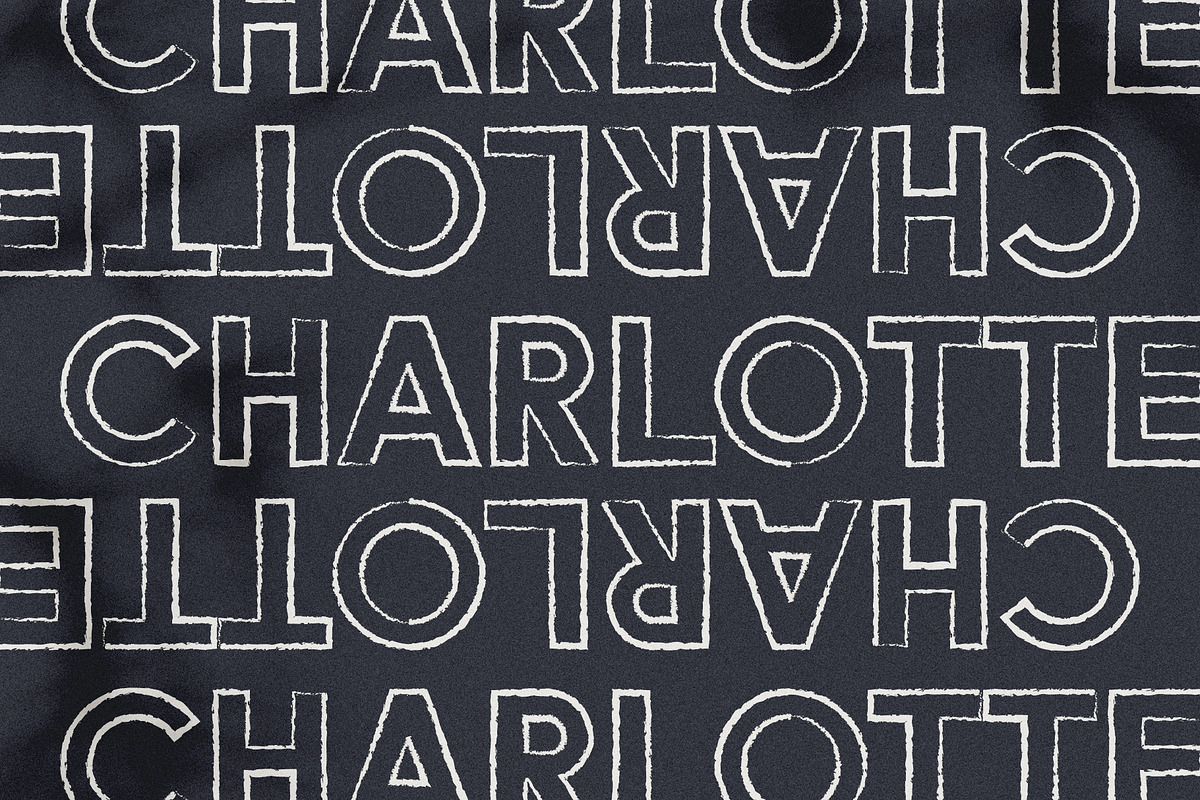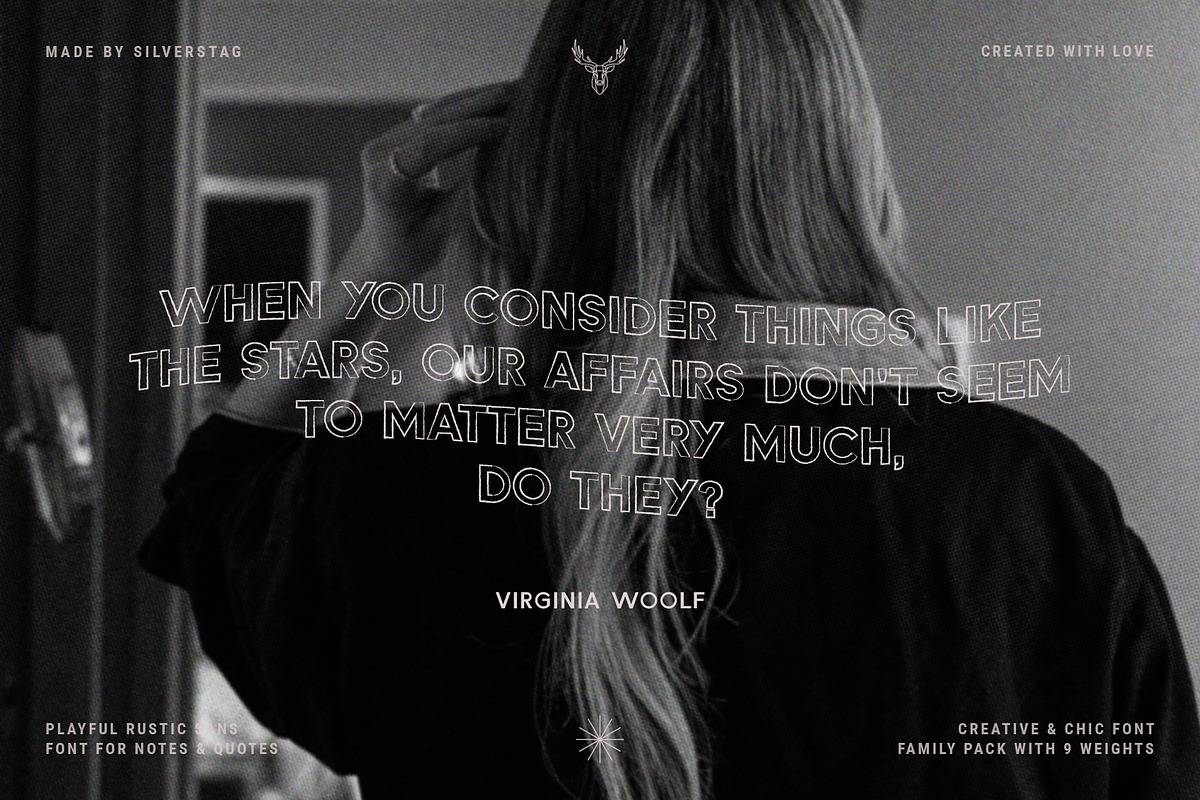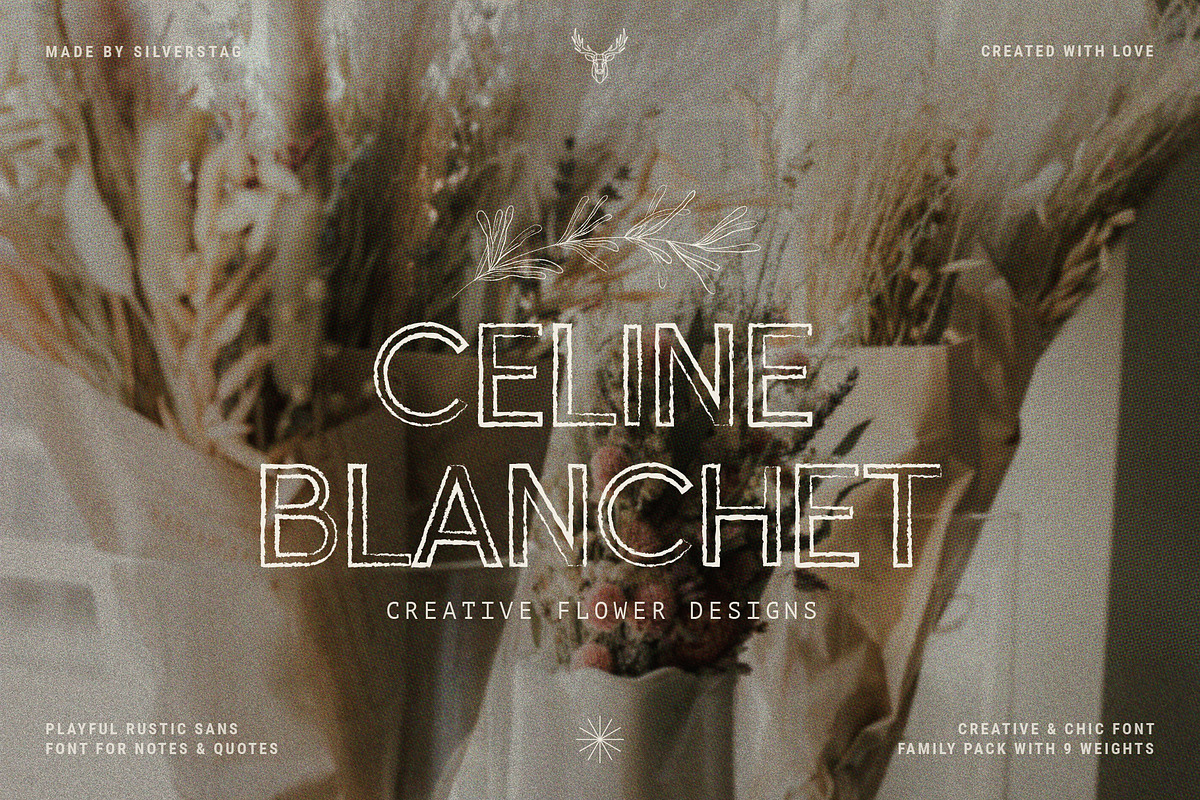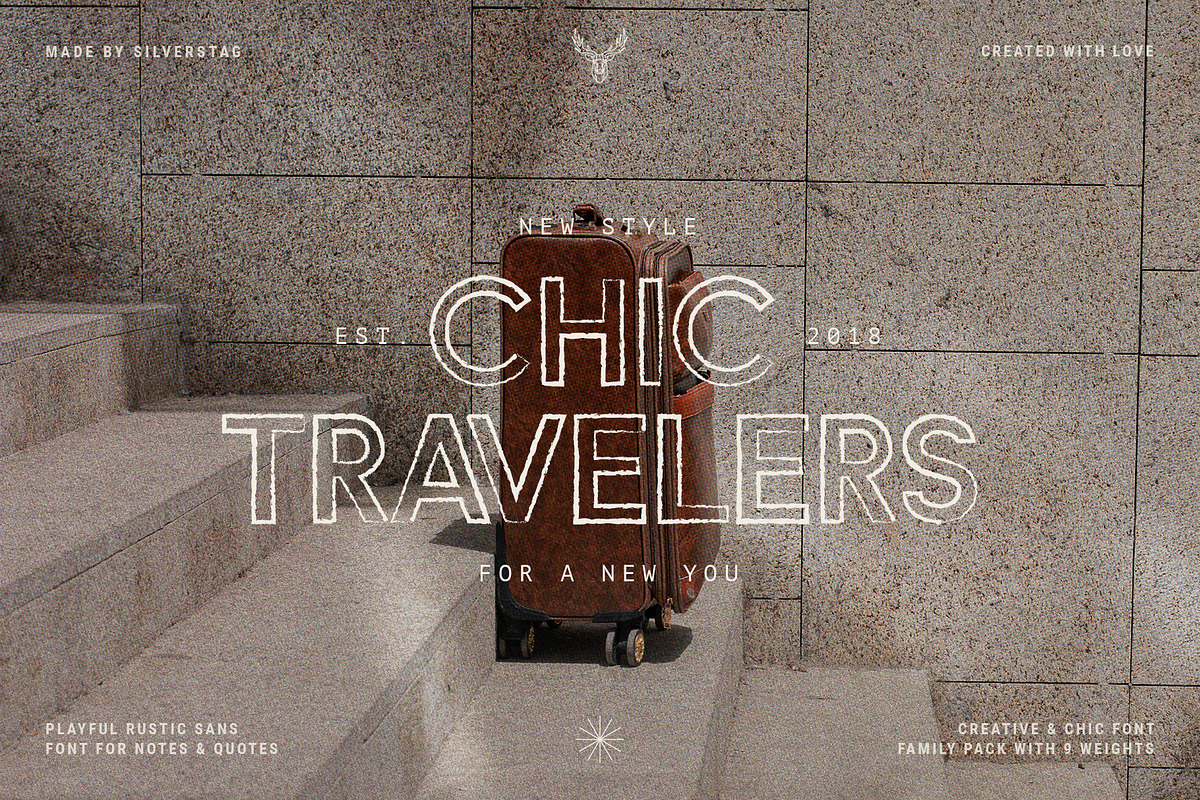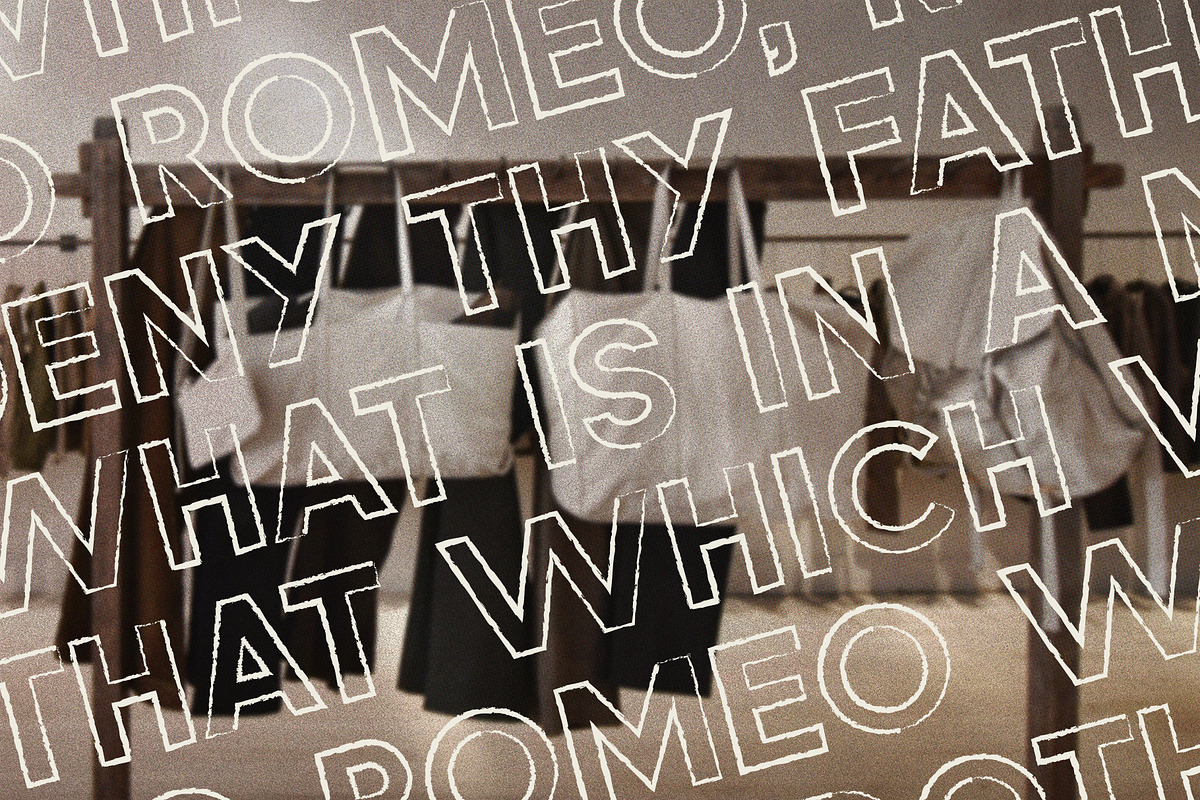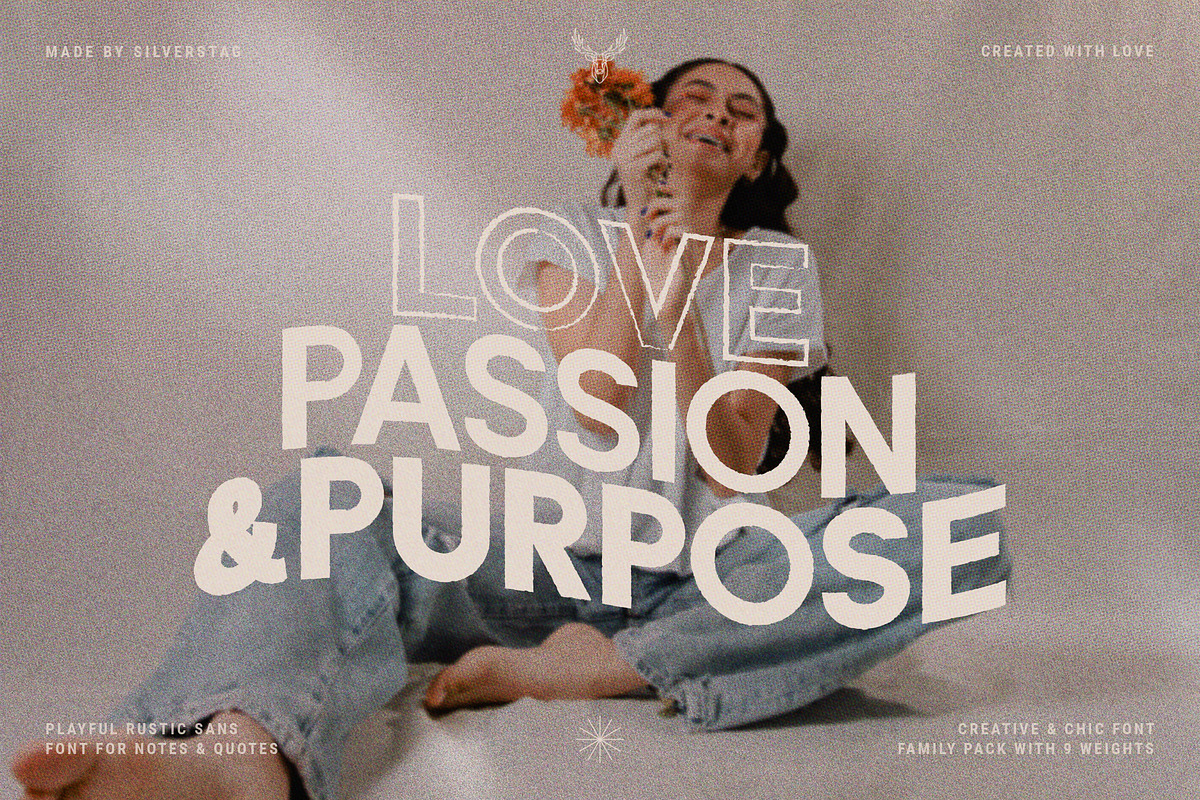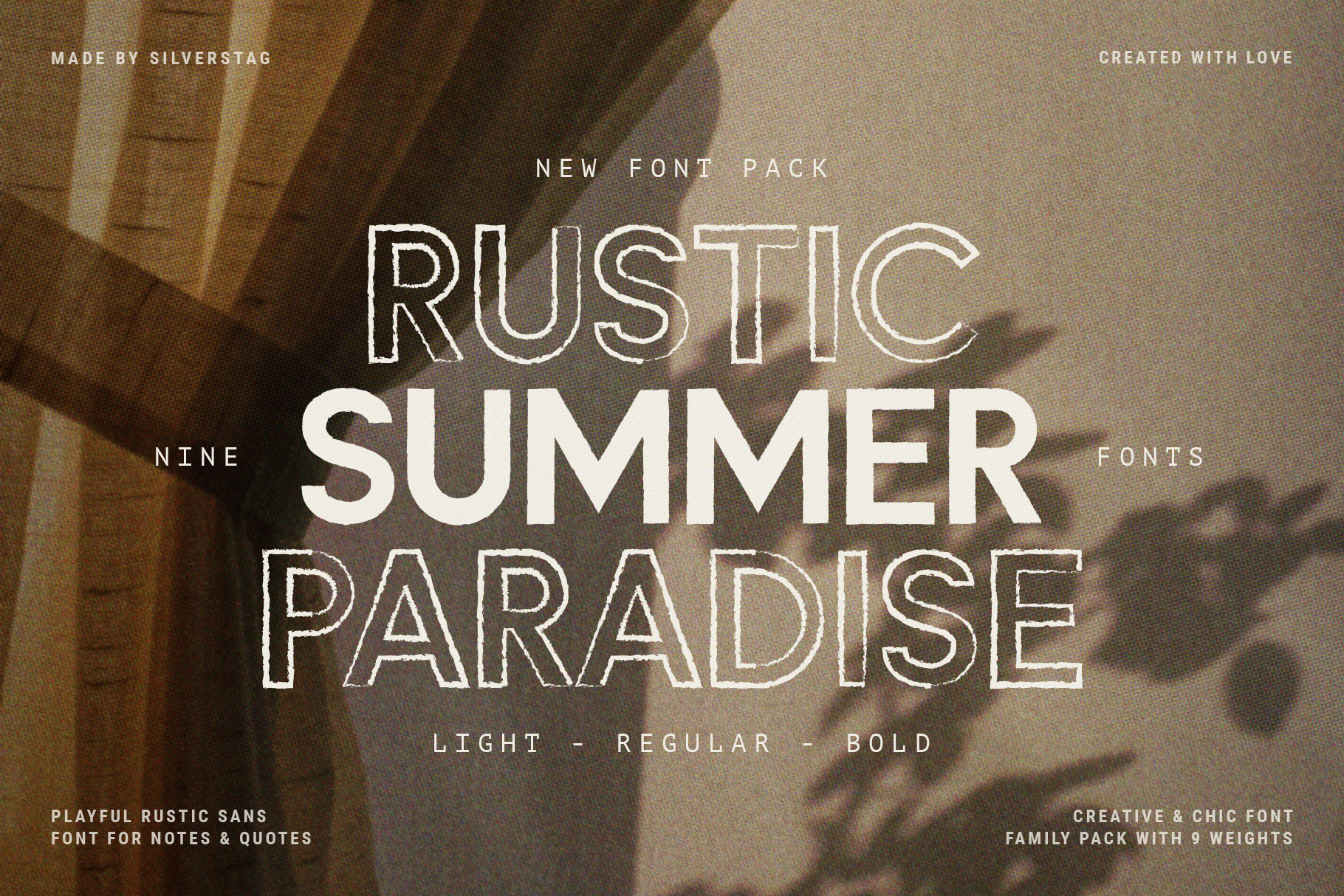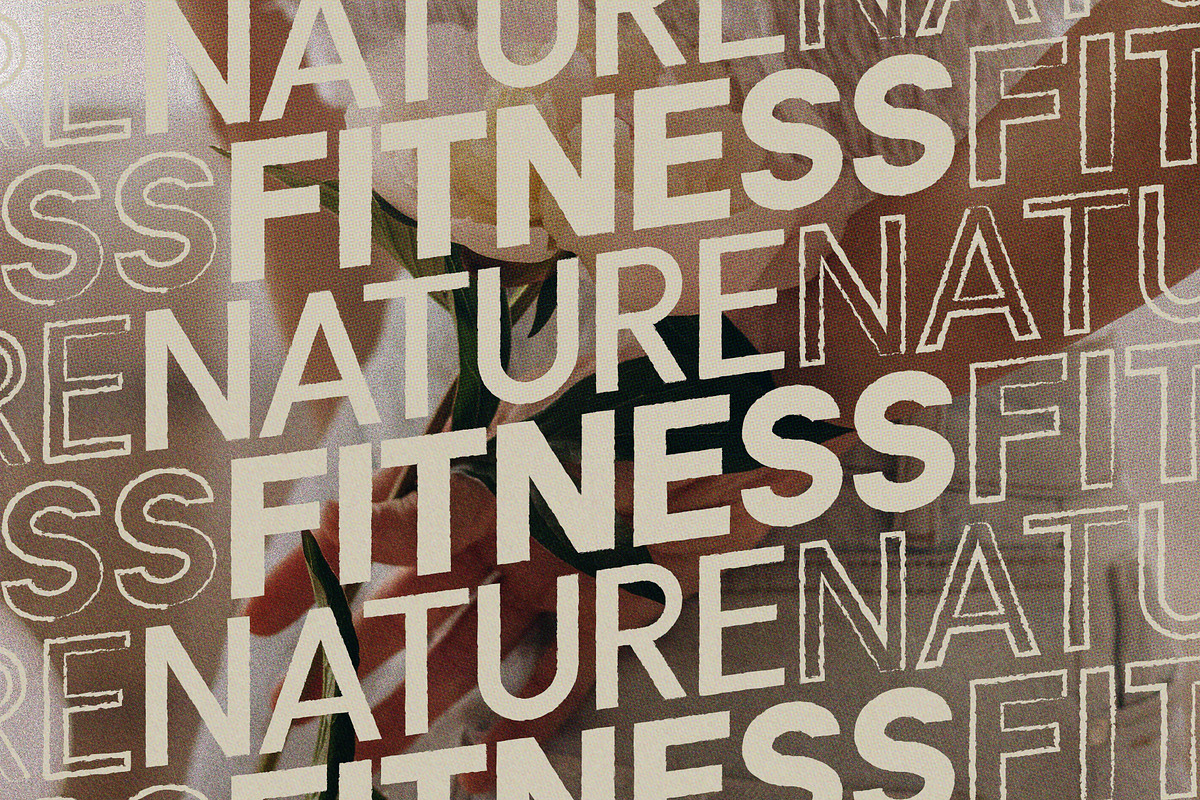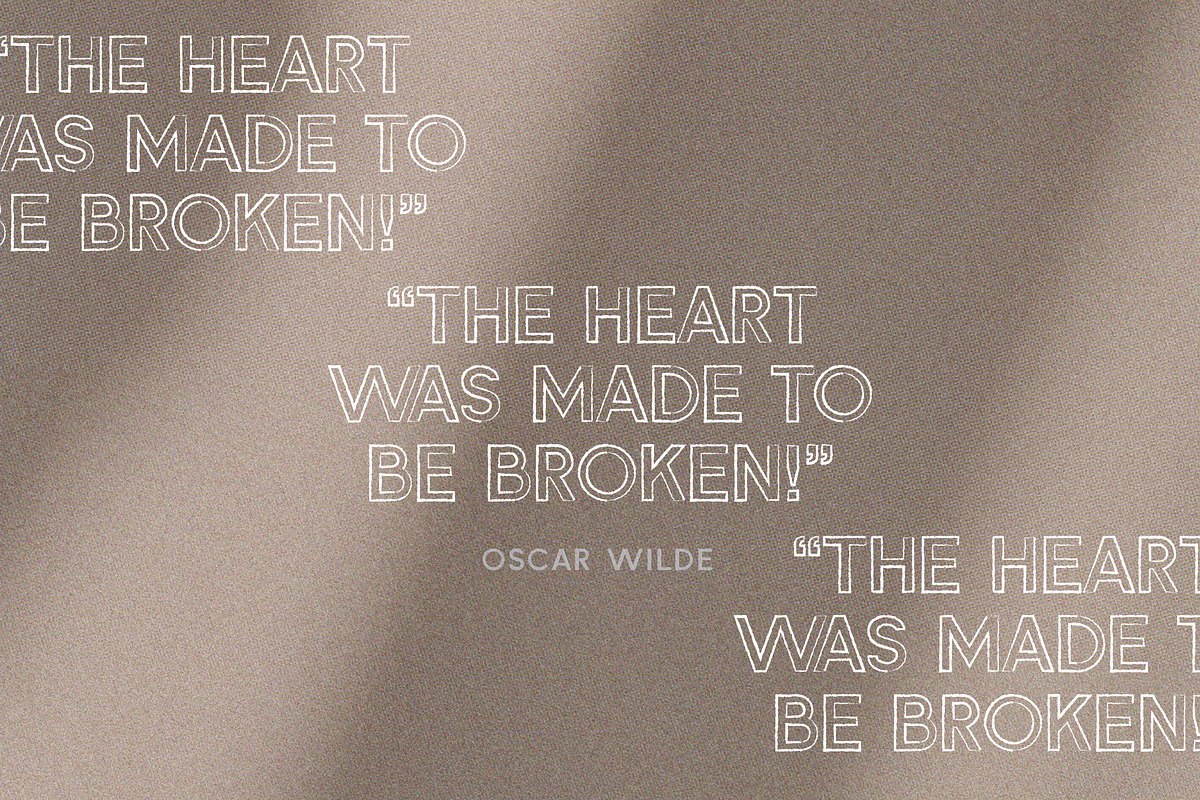
Rustic Summer Paradise Font Family
If you've been following me on Instagram, you are already familiar with this font pack. I have offered a free demo to all my followers and now I am proud to give you a full family of 9 fonts. With its chic vibe, Rustic Summer Paradise will be a perfect reminder of all the summer adventures you had this year, even when the summer and heat are long gone.
This font pack includes 9 fonts, rustic, solid and solid rustic in light, regular and bold weight. It is perfect for logos, branding, posters, social media & all other creative projects. It also includes full language support, punctuation, numerals and web font kit.
I invite you to check out the preview images, and I hope you will be immersed in my vision for this creative typeface that, I am sure, will work for all kinds of interesting projects you might be working on this year.